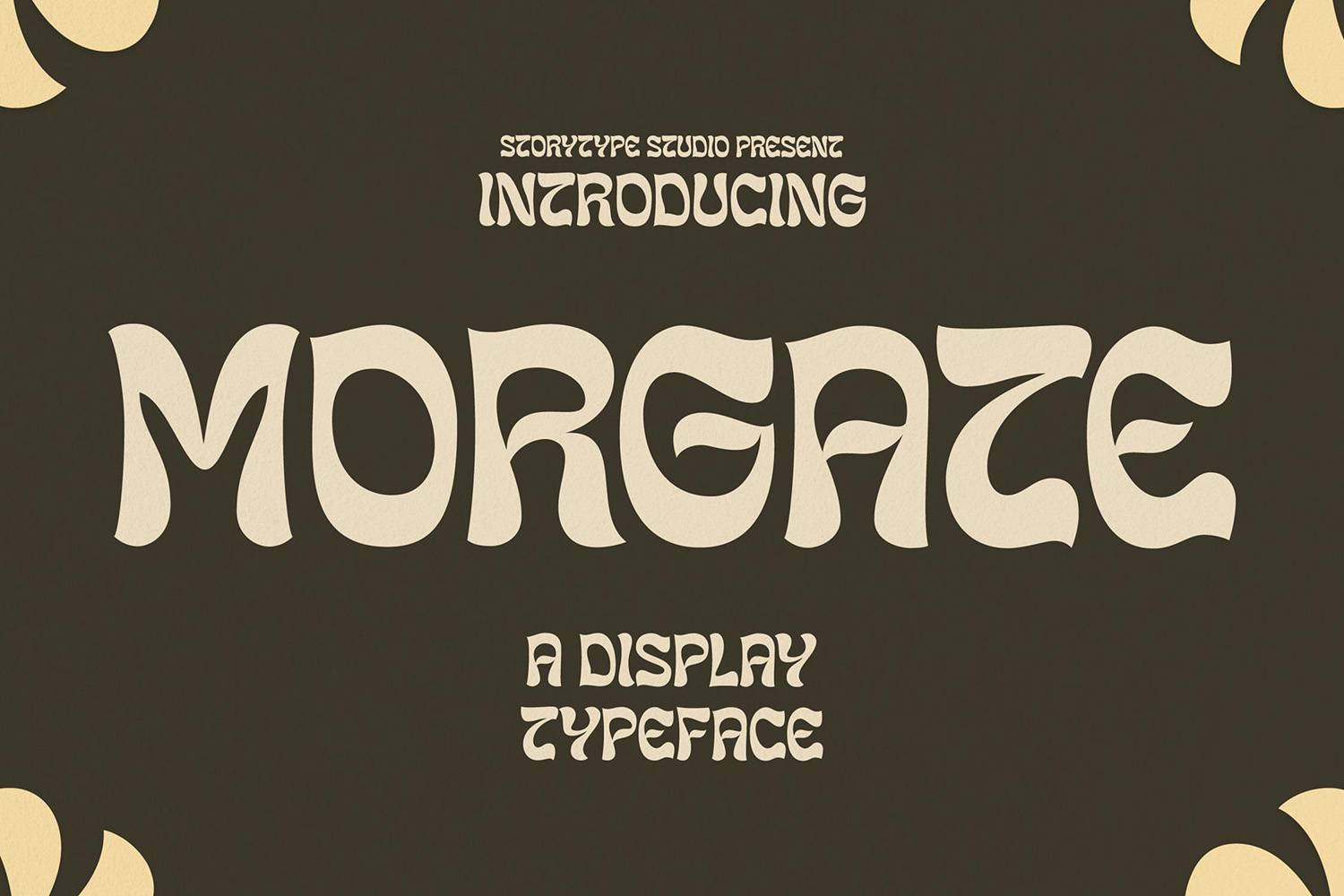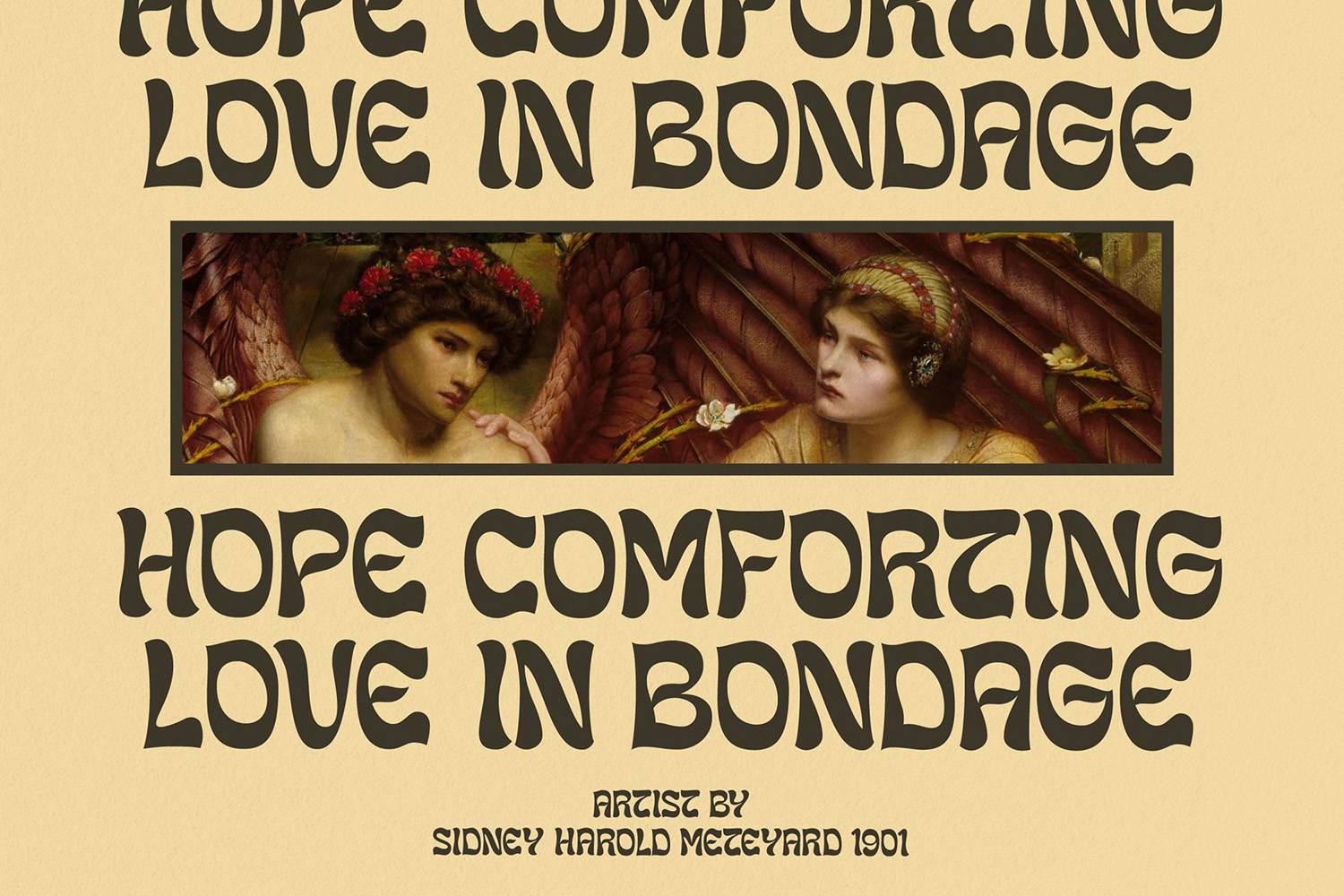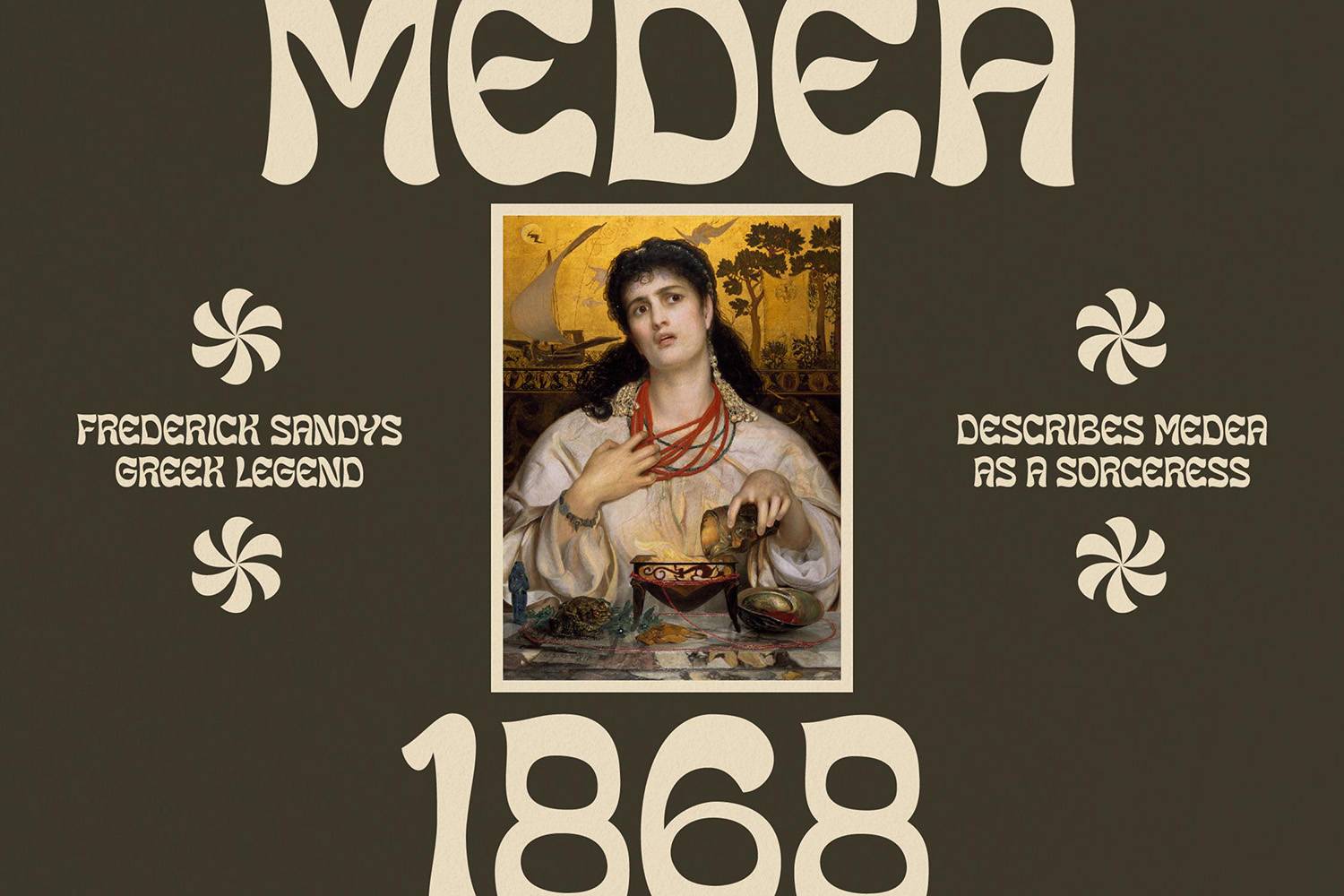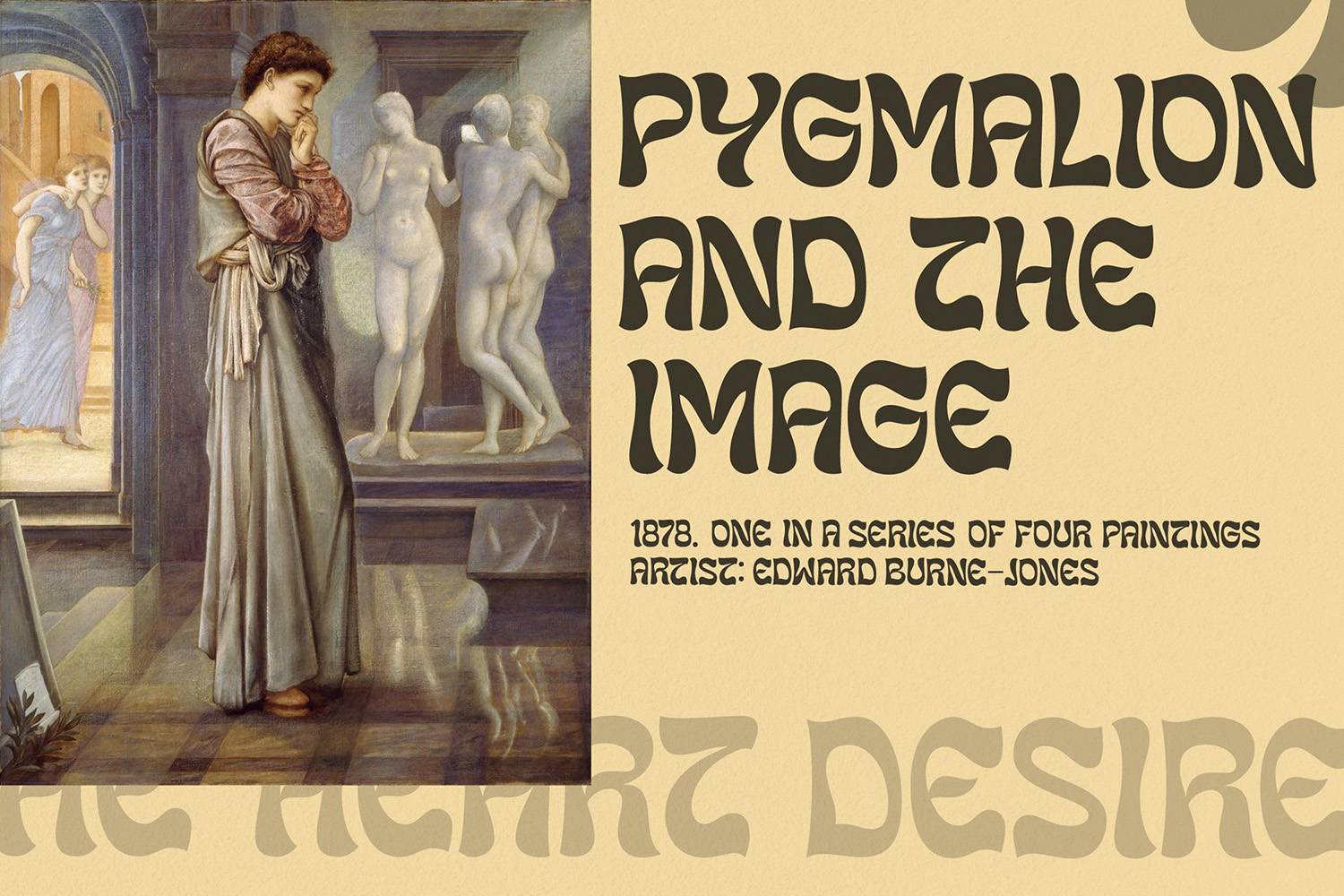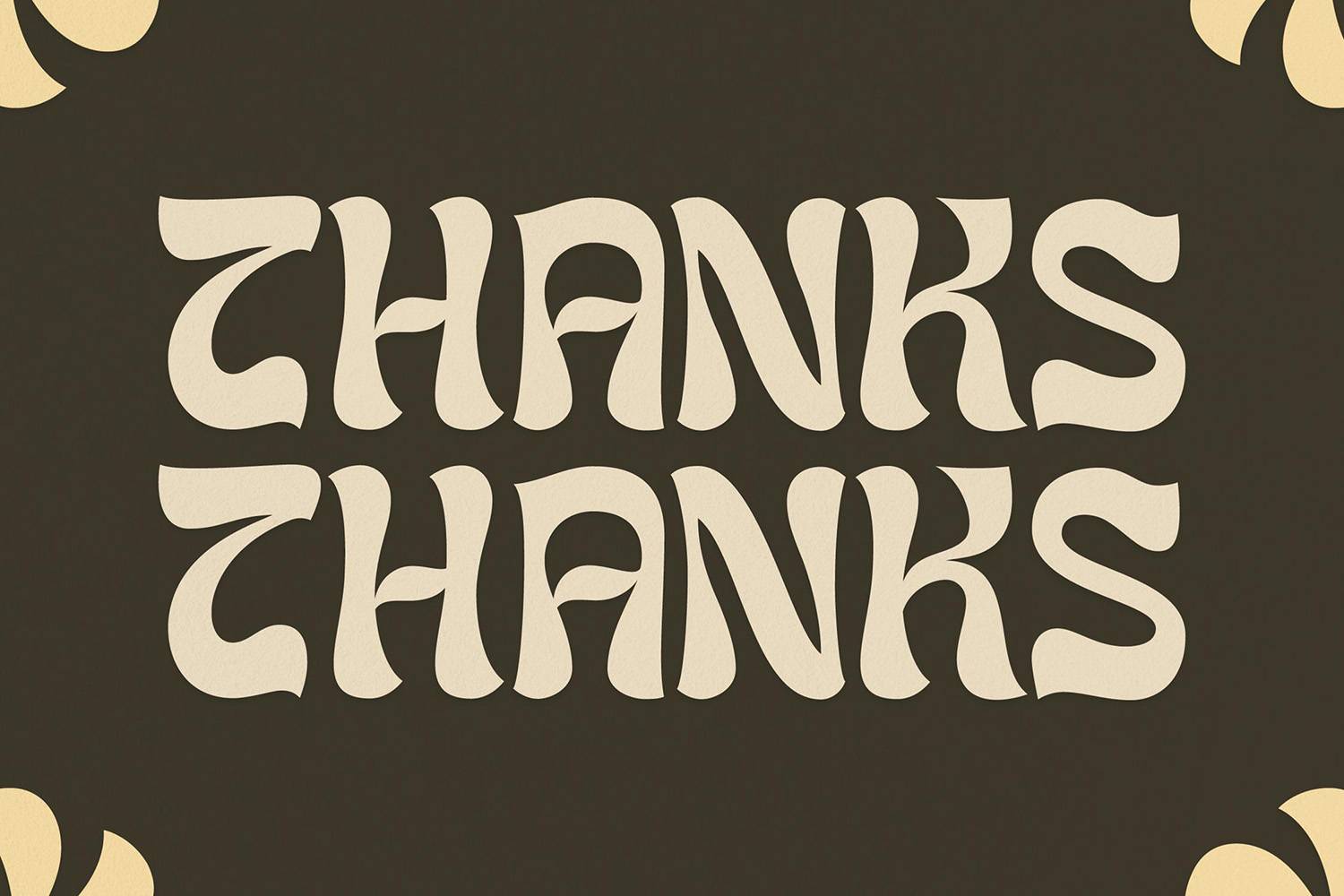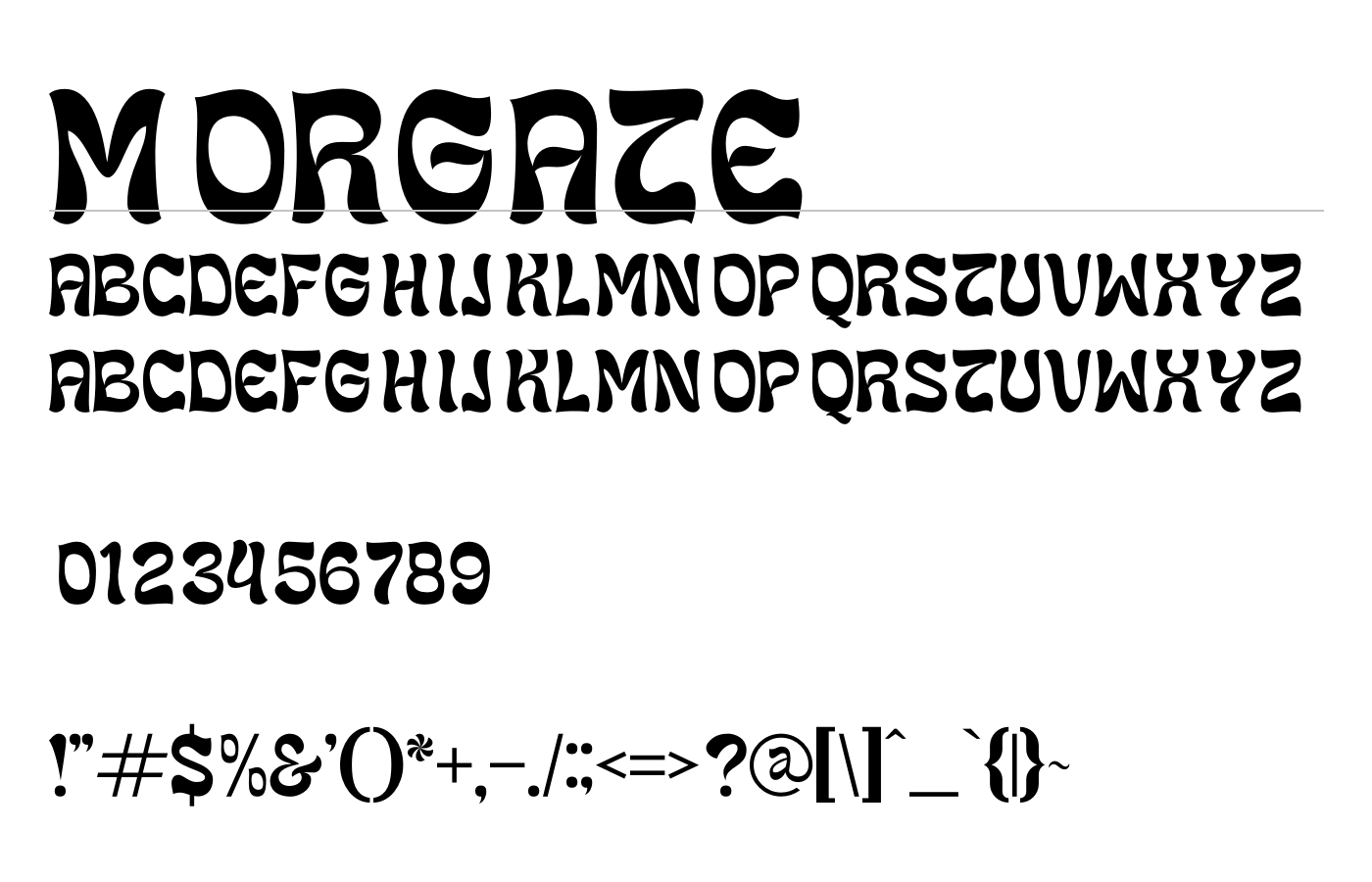
Morgate is a bold, playful display font with a unique, slightly whimsical character. Its thick strokes and quirky letter shapes give it a fun, eye-catching personality that works well for creative branding, posters, and headlines where a distinctive, informal vibe is desired. This font’s lively style makes it perfect for designs that want to stand out with a touch of originality and charm.
Morgate Font
About Morgate Font